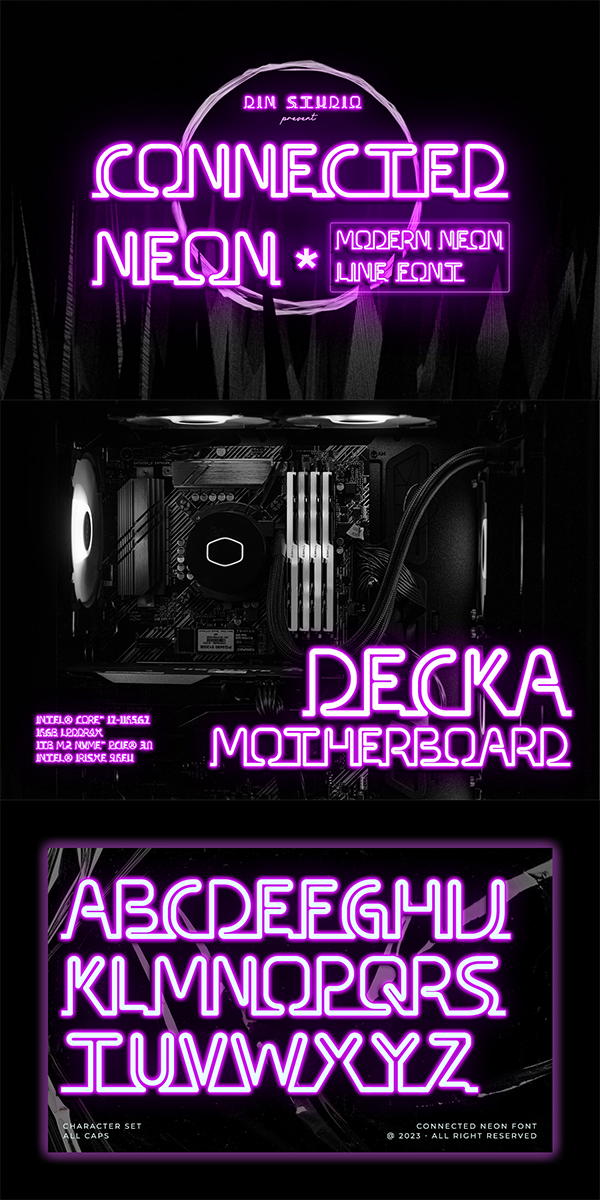
Conected Neon Font
About Conected Neon
Connected Neon is a mesmerizing display font that encapsulates the vibrant glow of neon lights, fusing it with a unique twist of connected letterforms. With its bold and uppercases design, this typeface commands attention, drawing the viewer into a captivating visual experience. The defining feature of Connected Neon lies in its elegant lines that seamlessly connect each letter, creating a unified and harmonious composition. These delicate lines flow effortlessly from one character to the next, accentuating the connectivity between them. As a result, the letters appear to dance with an electric energy, forming an enchanting tapestry of illuminated artistry. The neon-inspired style of Connected Neon is a nod to the retro-futuristic aesthetics of the 80s, reminiscent of the vibrant signage that adorned the bustling city streets. The font’s luminous glow radiates with an otherworldly aura, casting a vivid hue that is both nostalgic and contemporary, evoking a sense of vibrant energy and modernity. Each character in Connected Neon has been meticulously crafted to strike the perfect balance between legibility and decorative flair. The bold letterforms boast a sleek, sans-serif design, ensuring clarity even in the midst of the dynamic interplay of lines. The seamless connections between letters create a sense of continuity and fluidity, enhancing the visual appeal without compromising readability. Enjoy the various features available in this font.